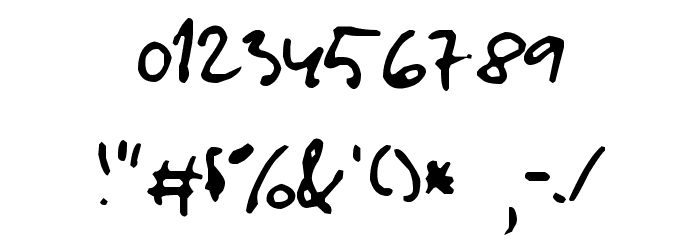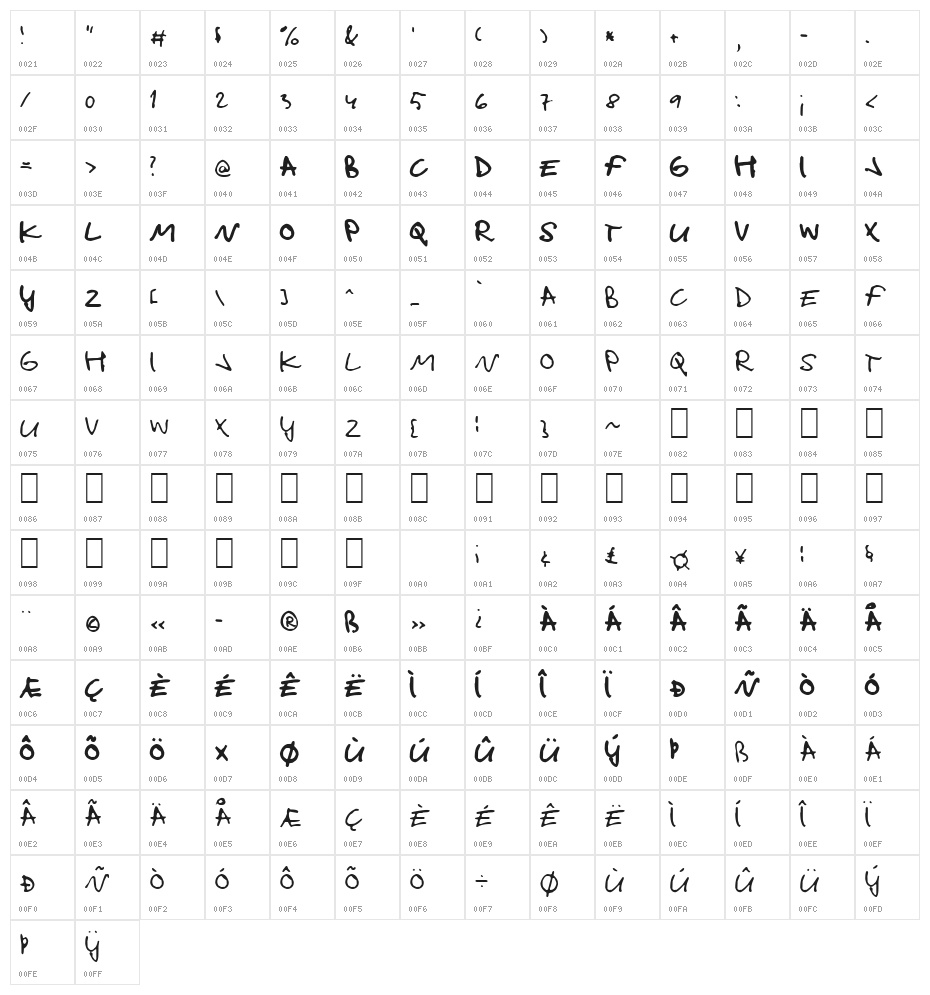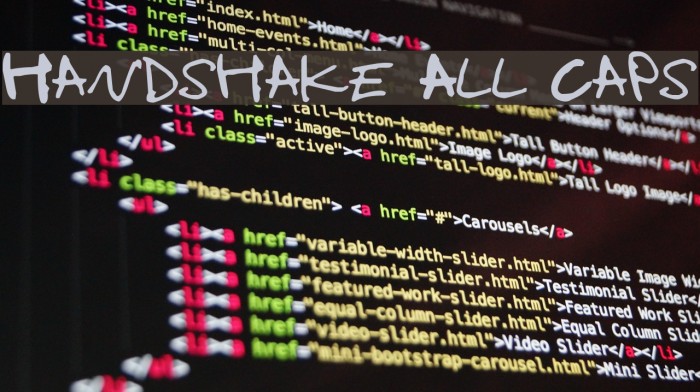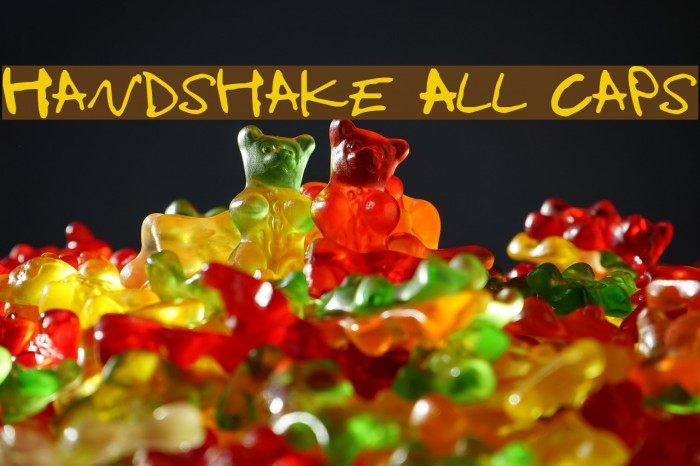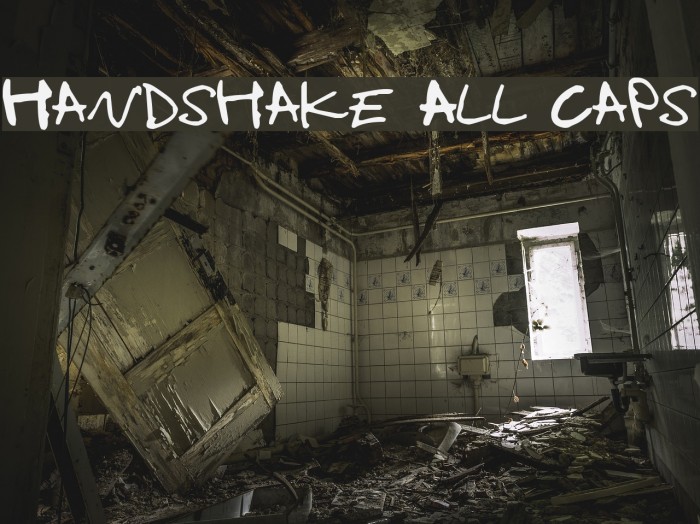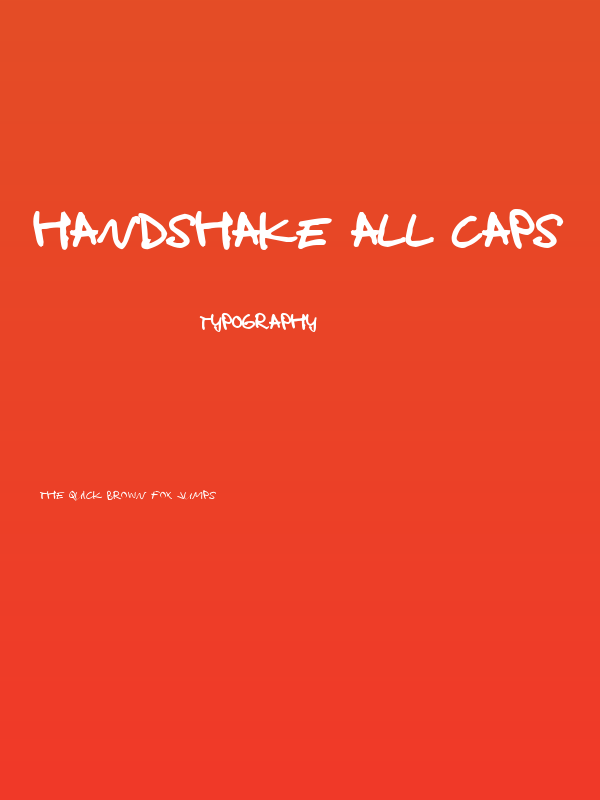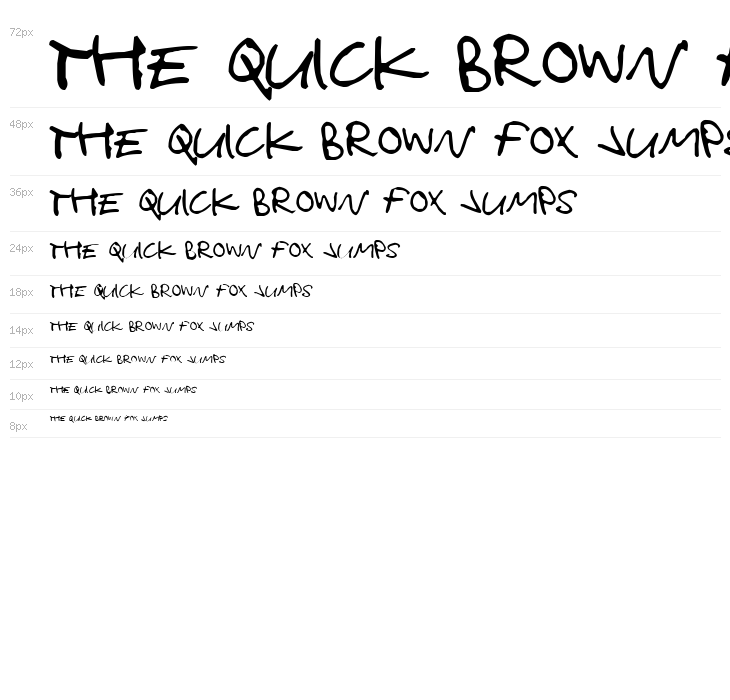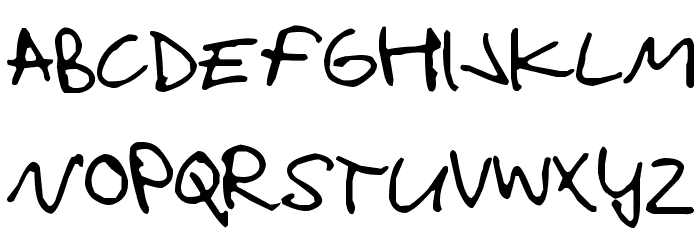
Handshake All Caps Font
Handshake All Caps Description
This font exhibits a dynamic and energetic handwritten style, characterized by its bold and expressive strokes. Each letter is crafted with a sense of movement, giving it a lively and informal appearance. The uppercase and lowercase letters maintain a consistent flow, while the numbers and special characters integrate seamlessly with the overall design. The font's playful nature makes it ideal for projects that require a personal touch or a creative flair. Its unique style is both approachable and distinctive, making it suitable for a variety of applications.
Use CaseLogos, Headlines, Creative projects
Proposed ProjectsIdeal for greeting cards, invitations, posters, and branding that requires a personal and creative touch.